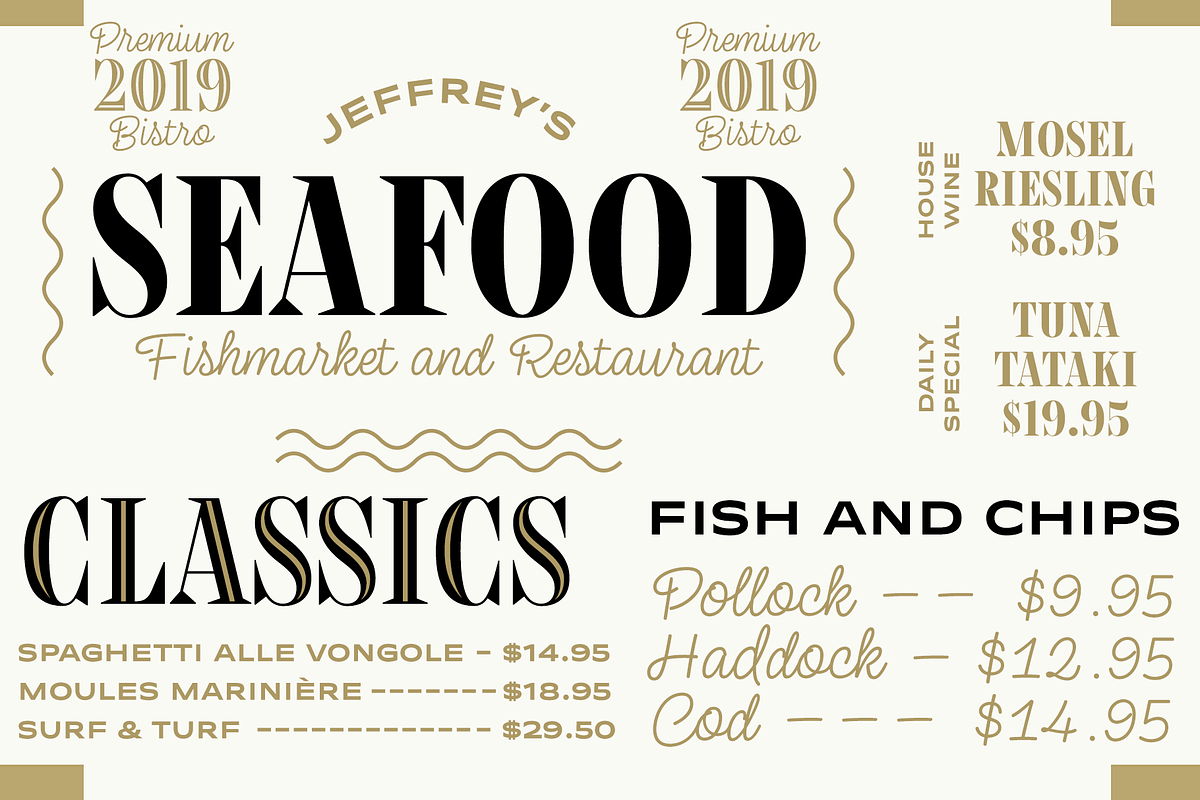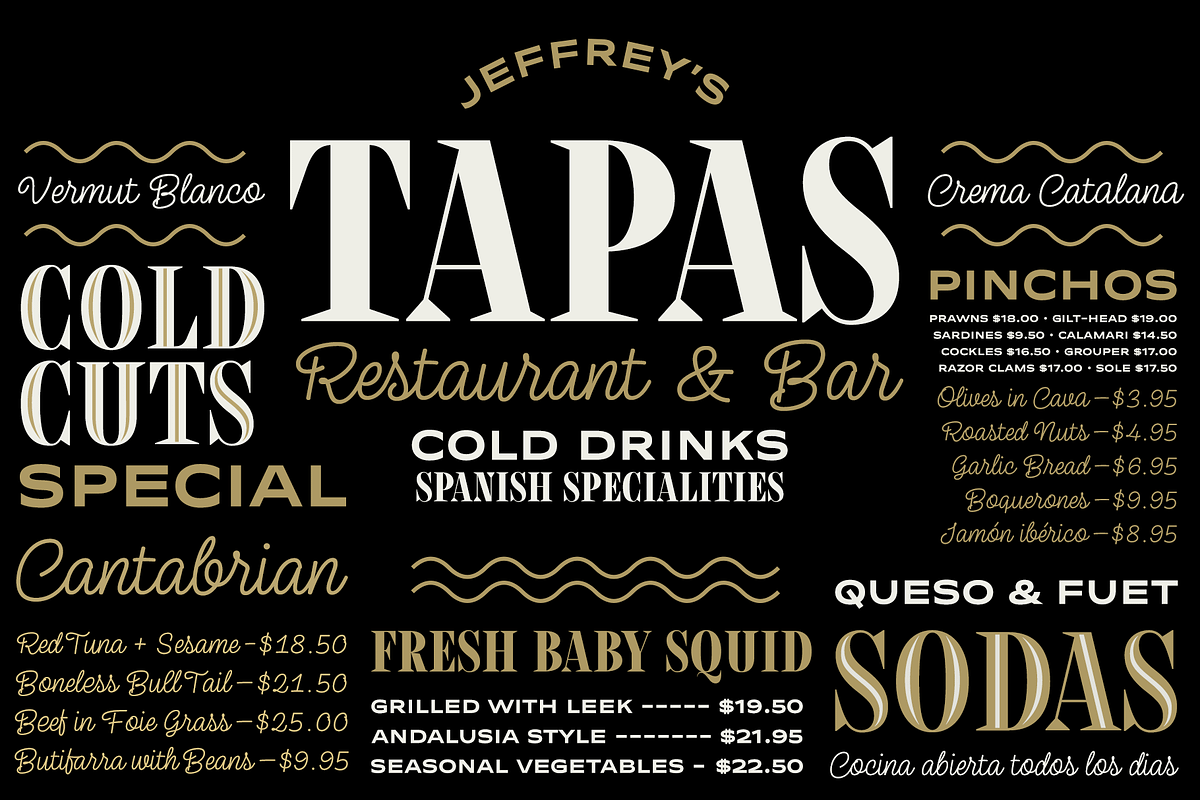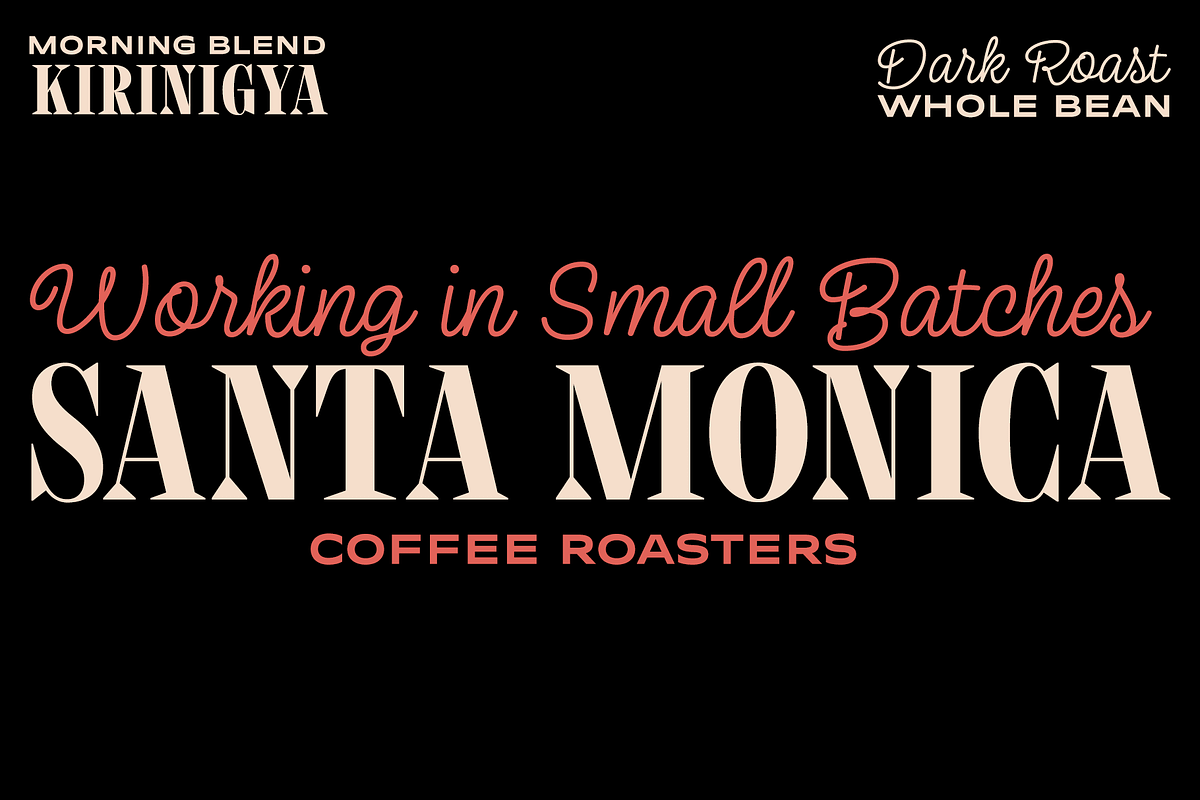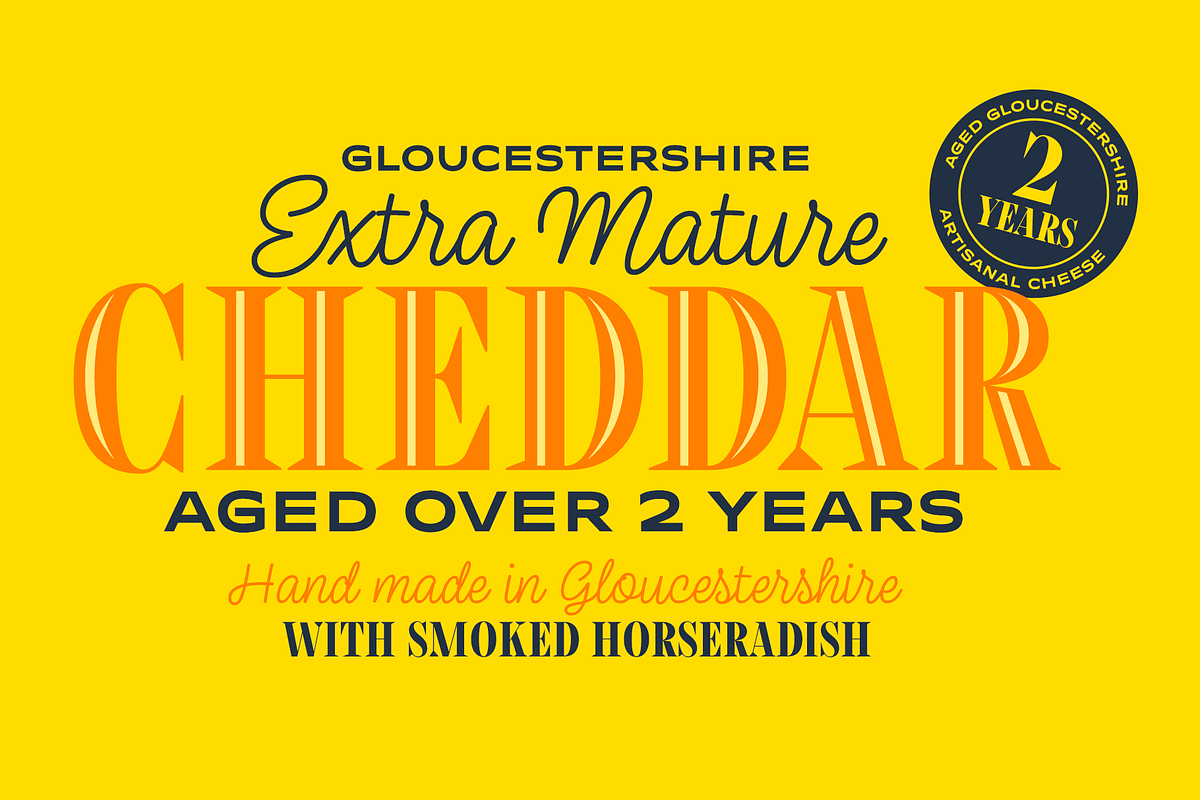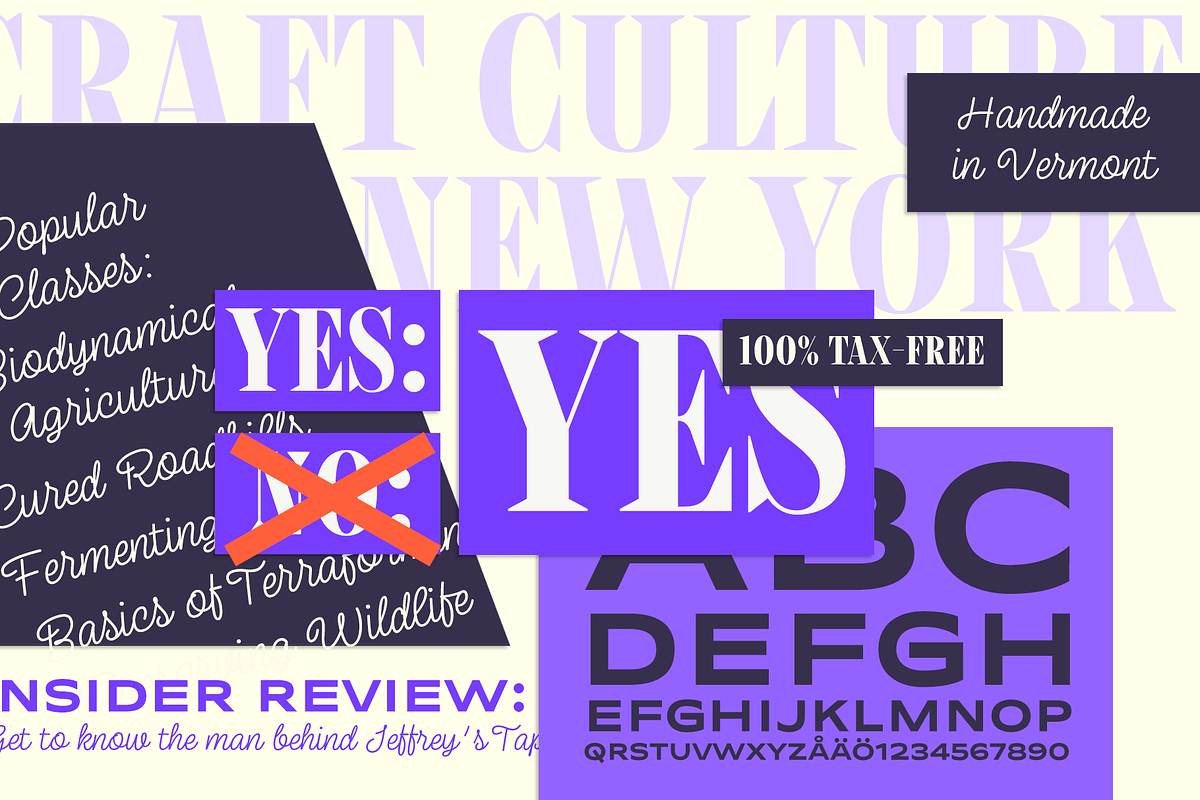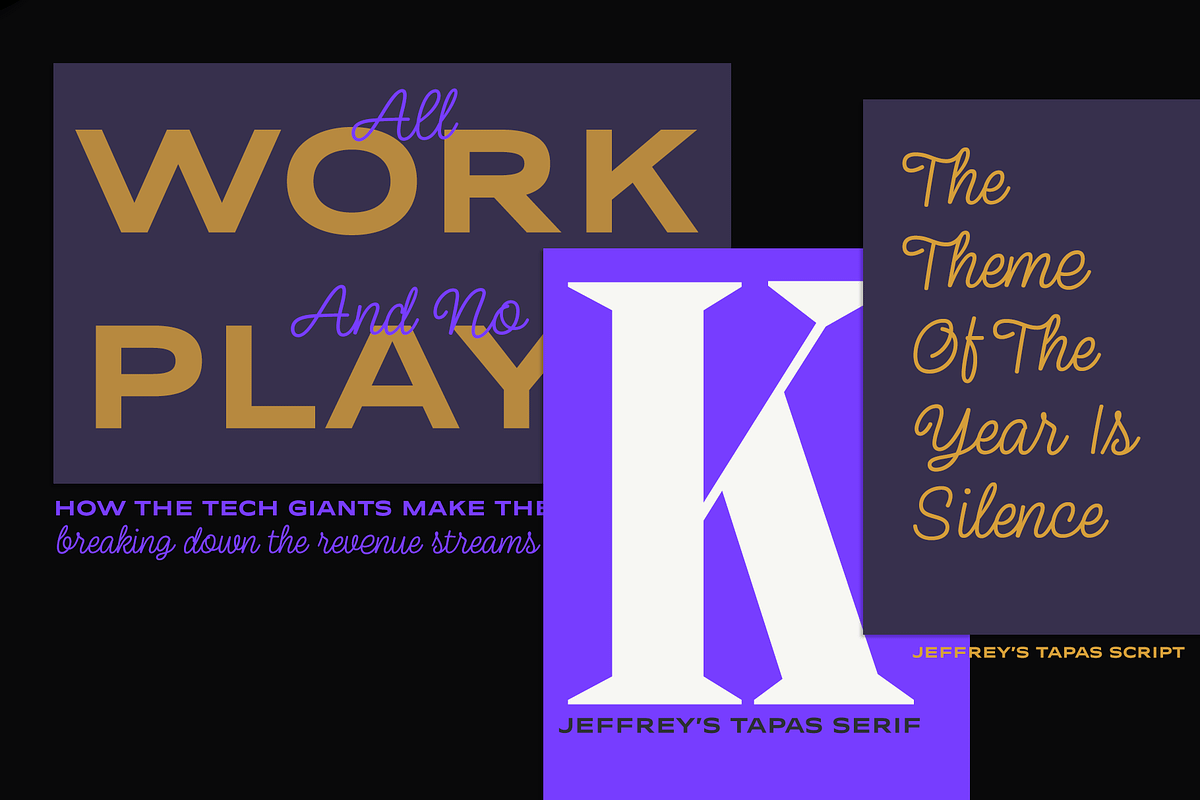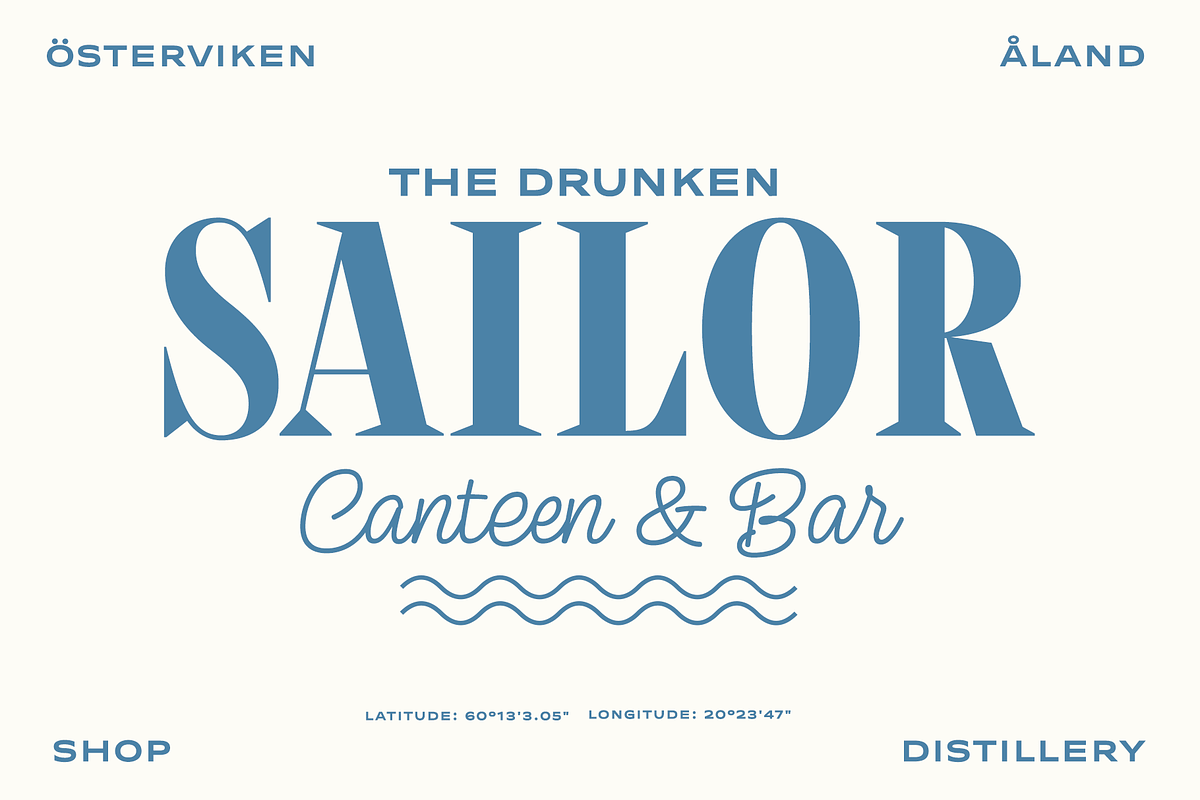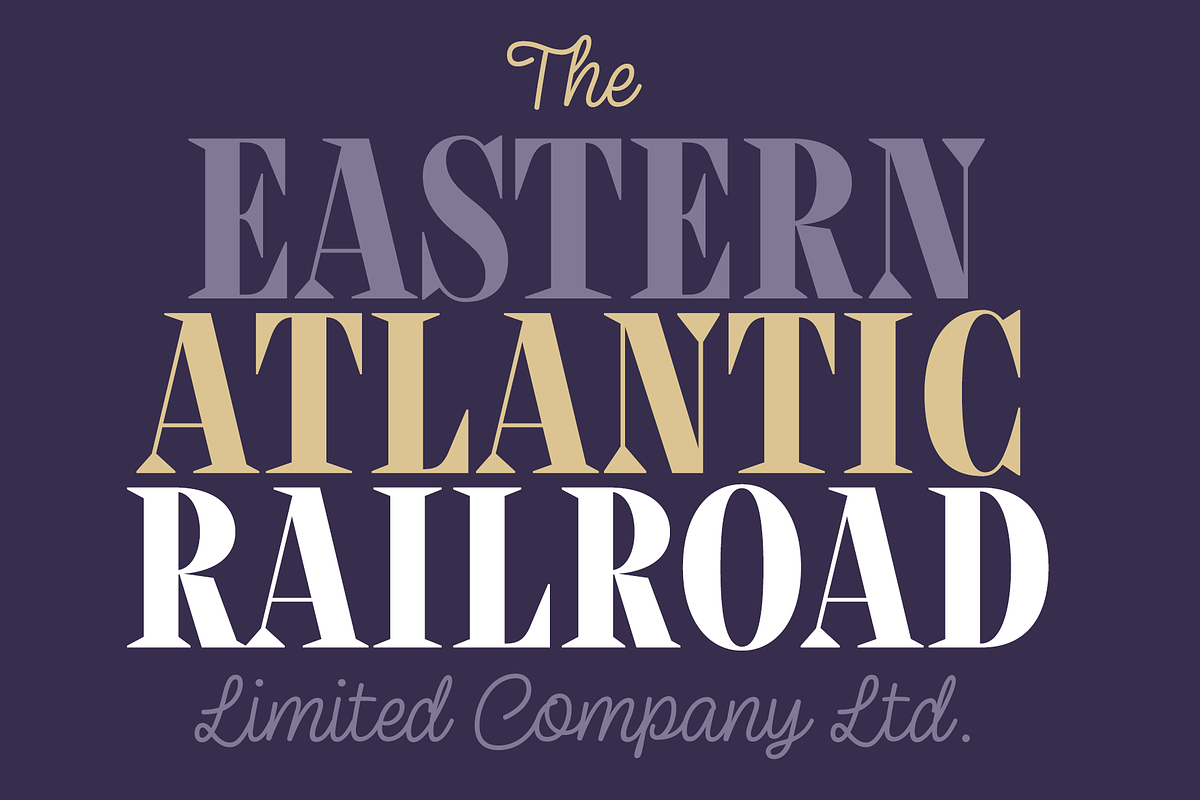
Tapas Font Bundle
Tapas is a delicious multi type family with a little something for everyone’s tastes and needs. The family consists of four distinct members that share same traits but communicate different aspects. Together they’ll create a bold and effortless mix of various flavors and accents. Naturally, the fonts can be used individually too.
Use the Tapas type family in packaging, branding or editorial – wherever some delicious flavors are needed.
- Together they’ll create a bold and effortless mix of various flavors and accents.
- Tapas Sans
- Tapas Script
- Tapas Serif
- Tapas Serif Deco